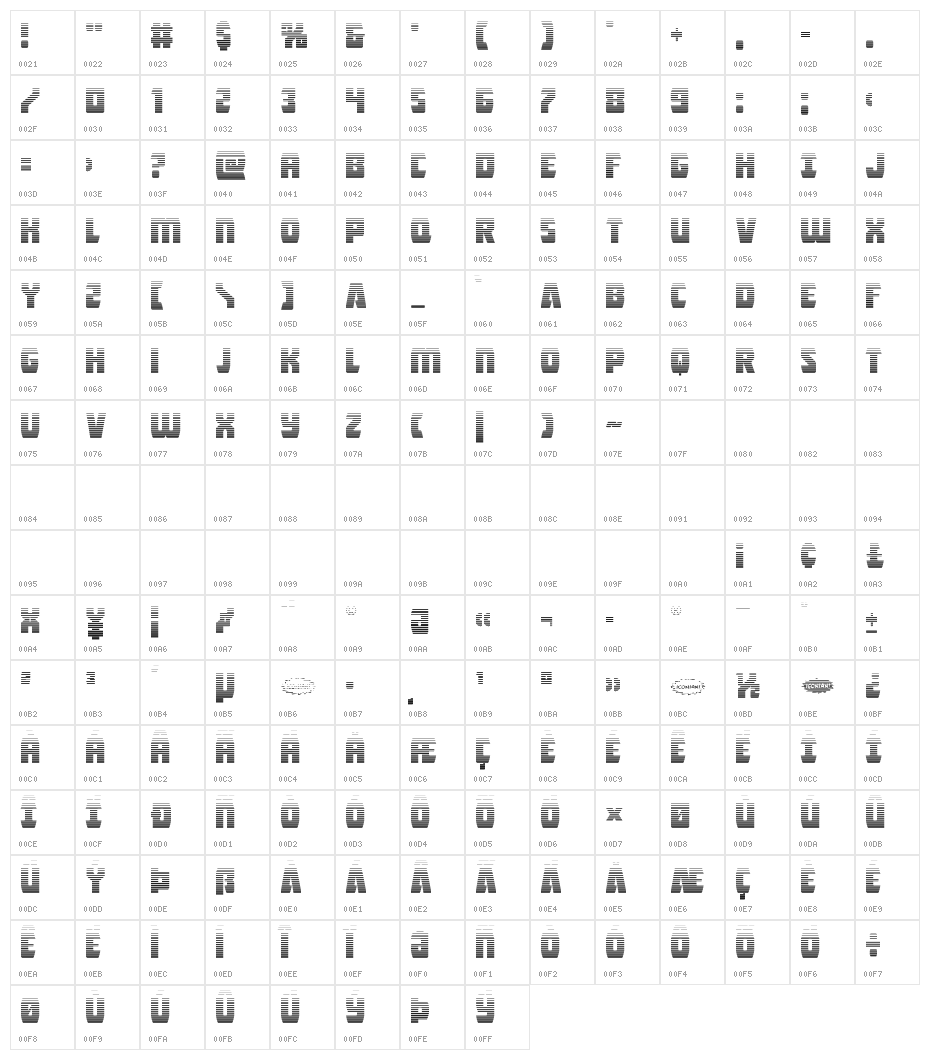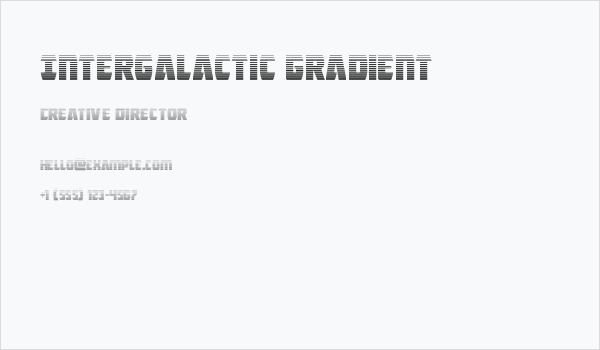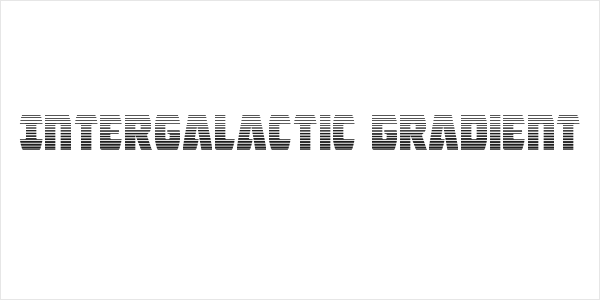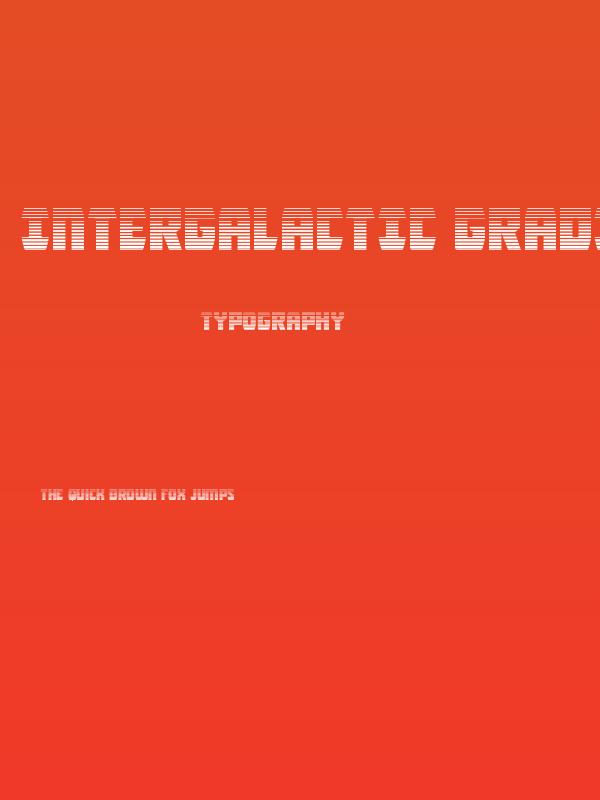
Intergalactic Gradient Font
Intergalactic Gradient Description
This font features a futuristic and bold design with a unique gradient effect created by horizontal lines that vary in thickness. The characters are wide and blocky, giving a strong and impactful appearance. The uppercase and lowercase letters maintain a consistent style, with sharp angles and a geometric structure. Numbers and special characters are designed to match the bold and modern aesthetic, making them stand out. The overall look is reminiscent of digital or sci-fi themes, suitable for projects that require a modern and edgy feel.
| Proposed Projects | Ideal for sci-fi themed projects, digital art, video game titles, and futuristic branding. |